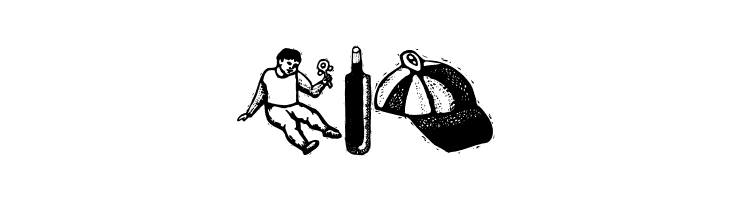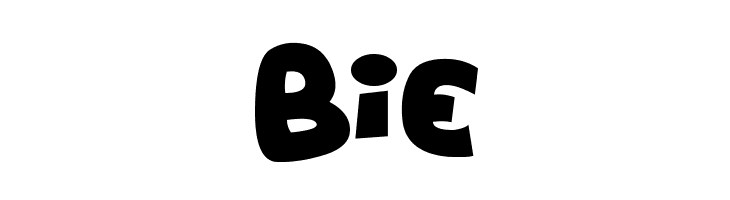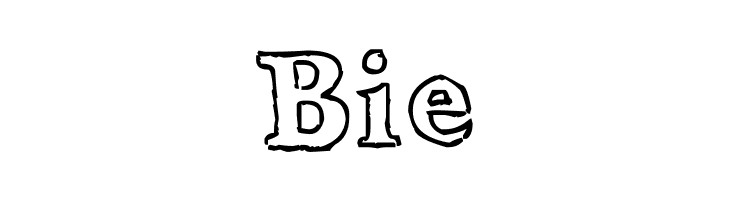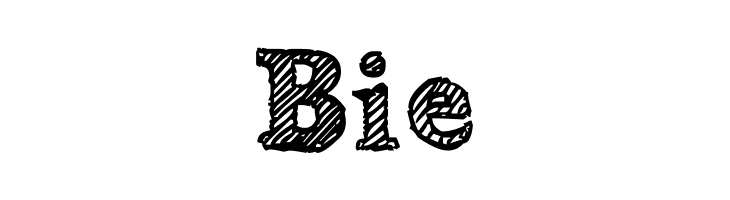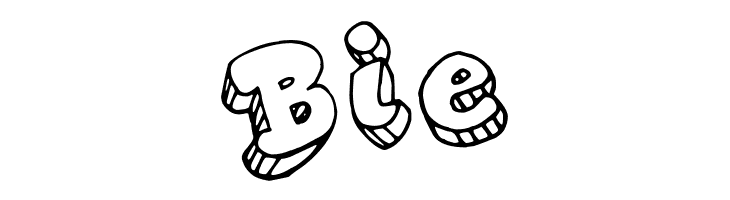
• Wobbly Bob
( Becky S )
A playful, hand-drawn font with a sketch-like, textured appearance.
• Wobbly Bob Outline
( Becky S )
A playful, hand-drawn outline font with wobbly, uneven lines.
• Wonder Gangs
( Fonts by Fontherapy | Kalifont Studio )
A bold, brushstroke font with dynamic and expressive characters.
• WonderAge
( Xerographer Fonts - Max Infeld - xerographer.blogspot.com )
A bold, geometric font with a modern and industrial style.
• WoodcutSix
A woodcut-style dingbat font with playful, vintage illustrations.
• Woodcutter Rude Press
A bold, rugged font with a hand-carved, vintage woodcut style.
• Woodtrap
( Fonts by Colllab Studio )
A bold, brush-textured font with a rugged and dynamic style.
• World Colors
A playful, 3D hand-drawn font with a bold, cartoonish style.
• Worship Music
( Fonts by JSH creates )
A bold, brush-style font with a hand-drawn, energetic appearance.
• Wowsers